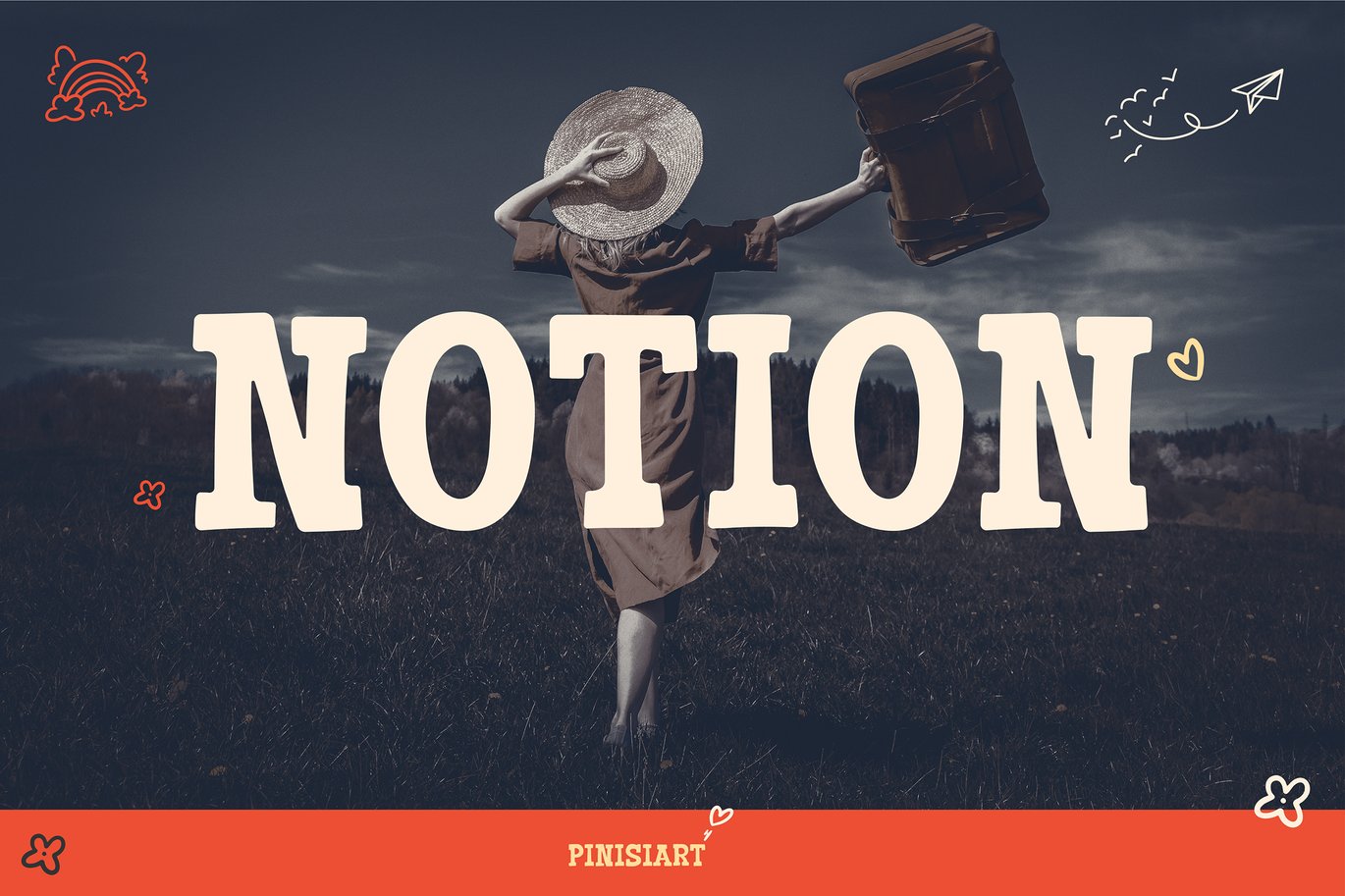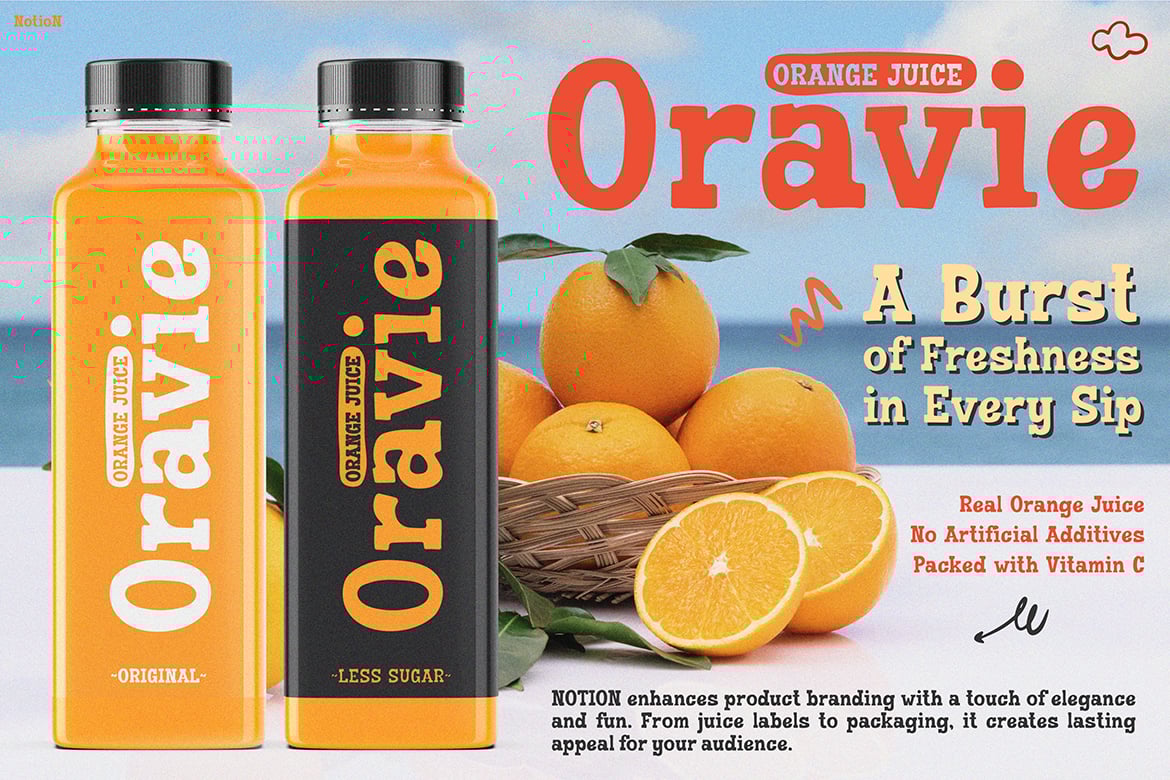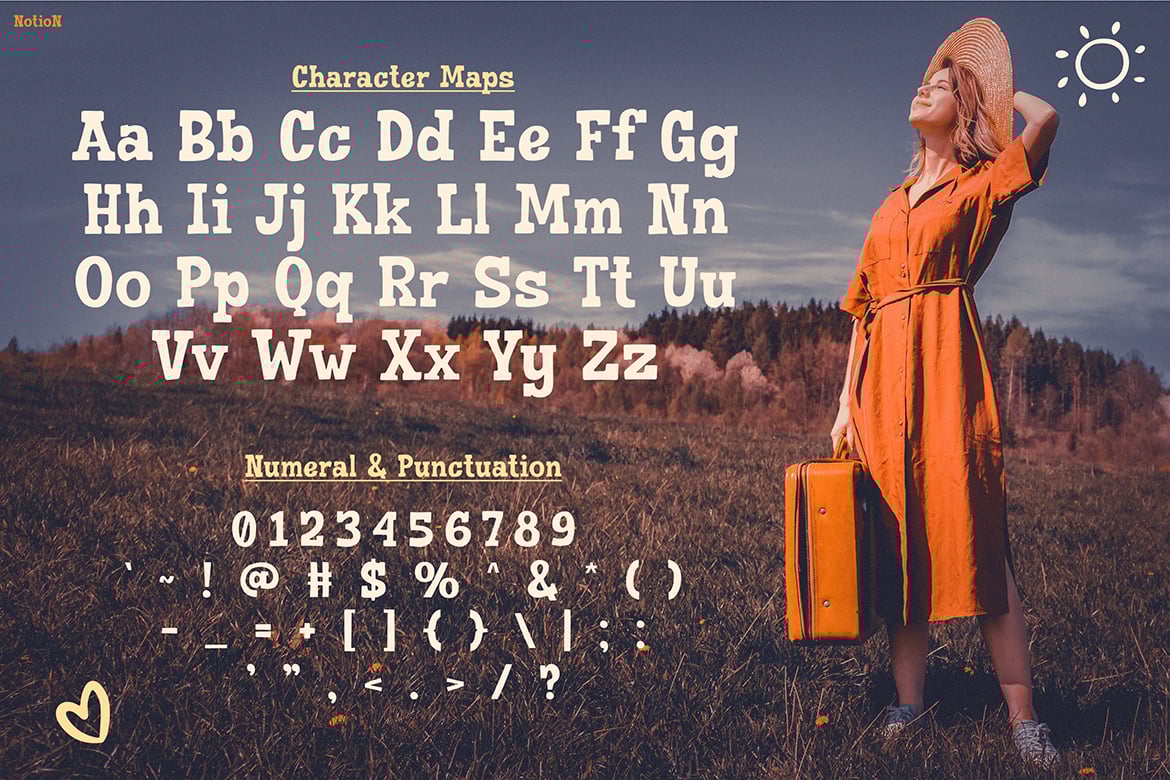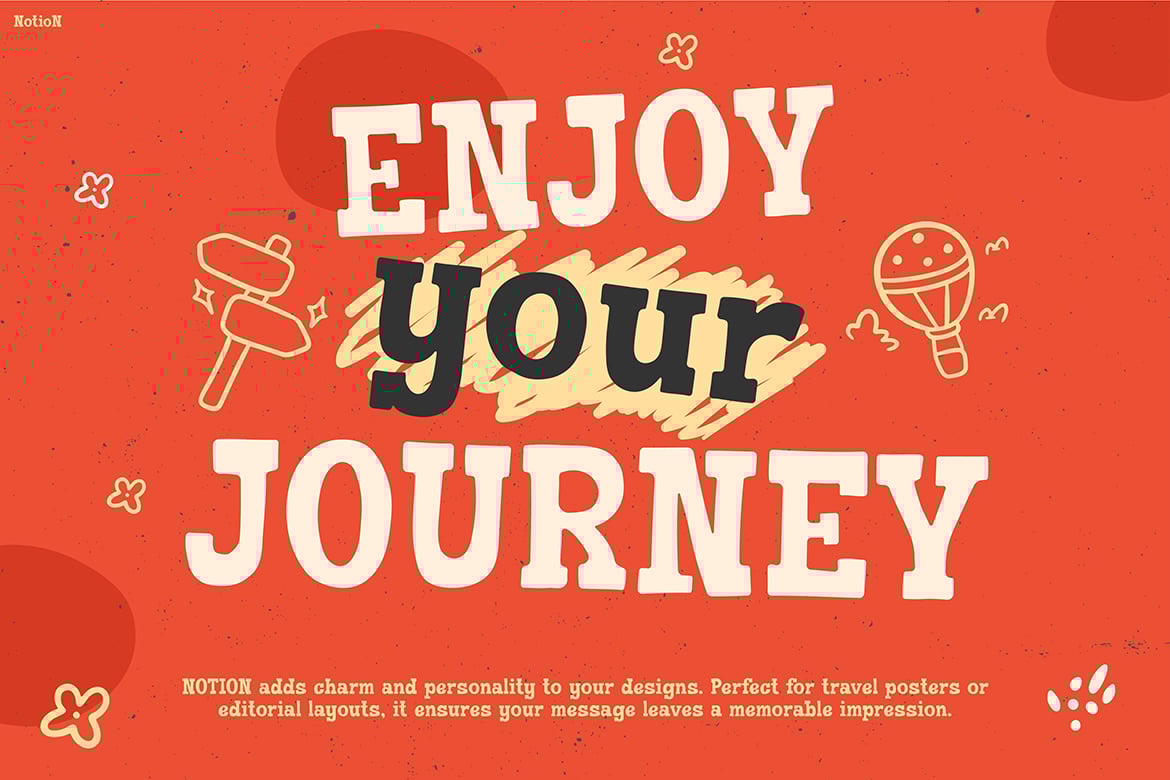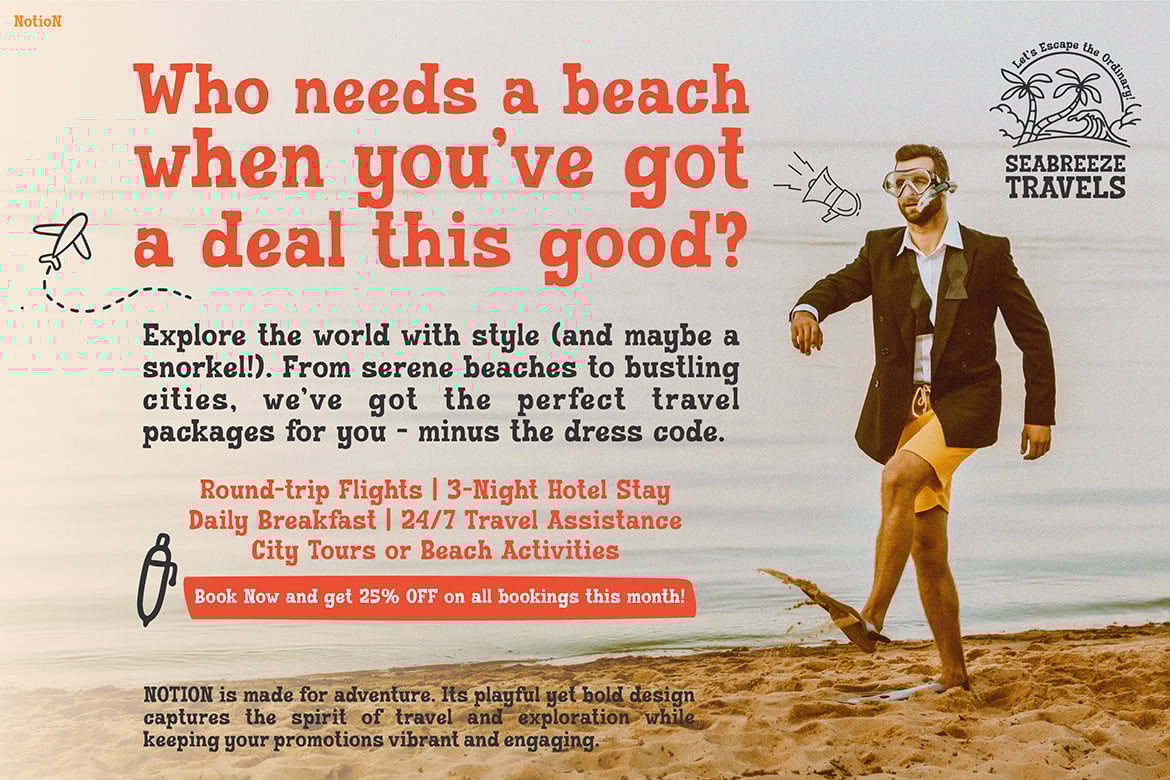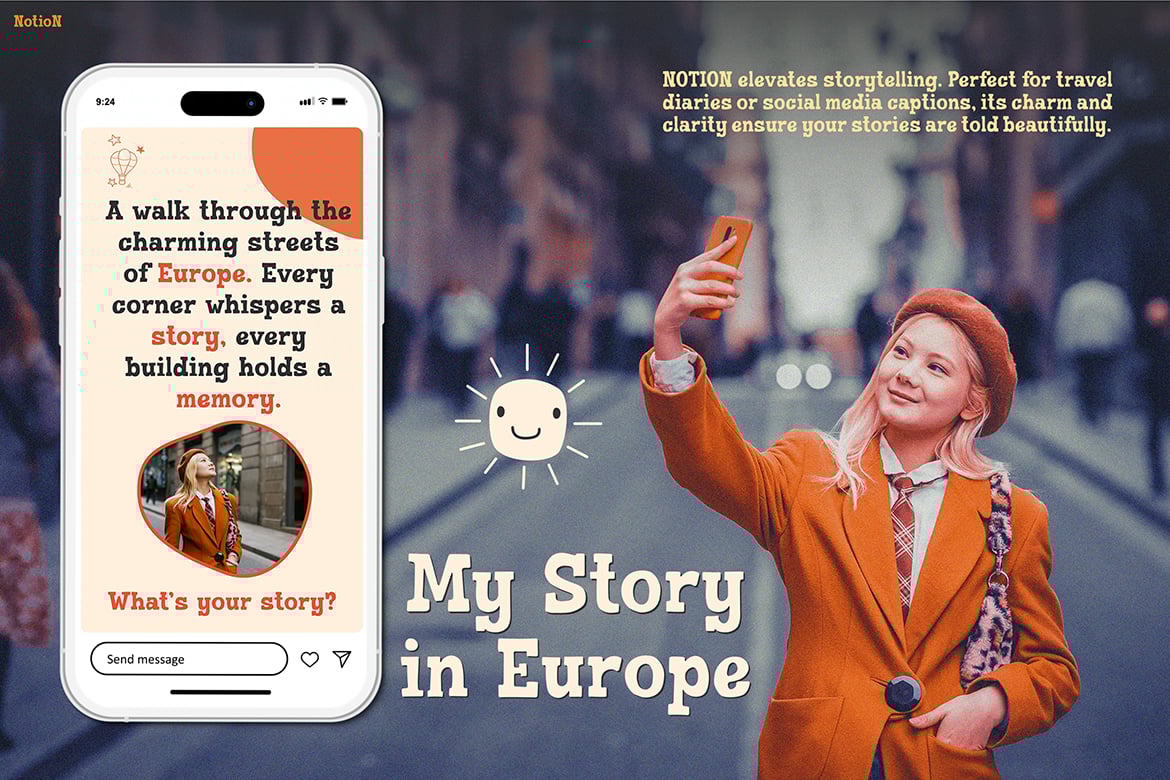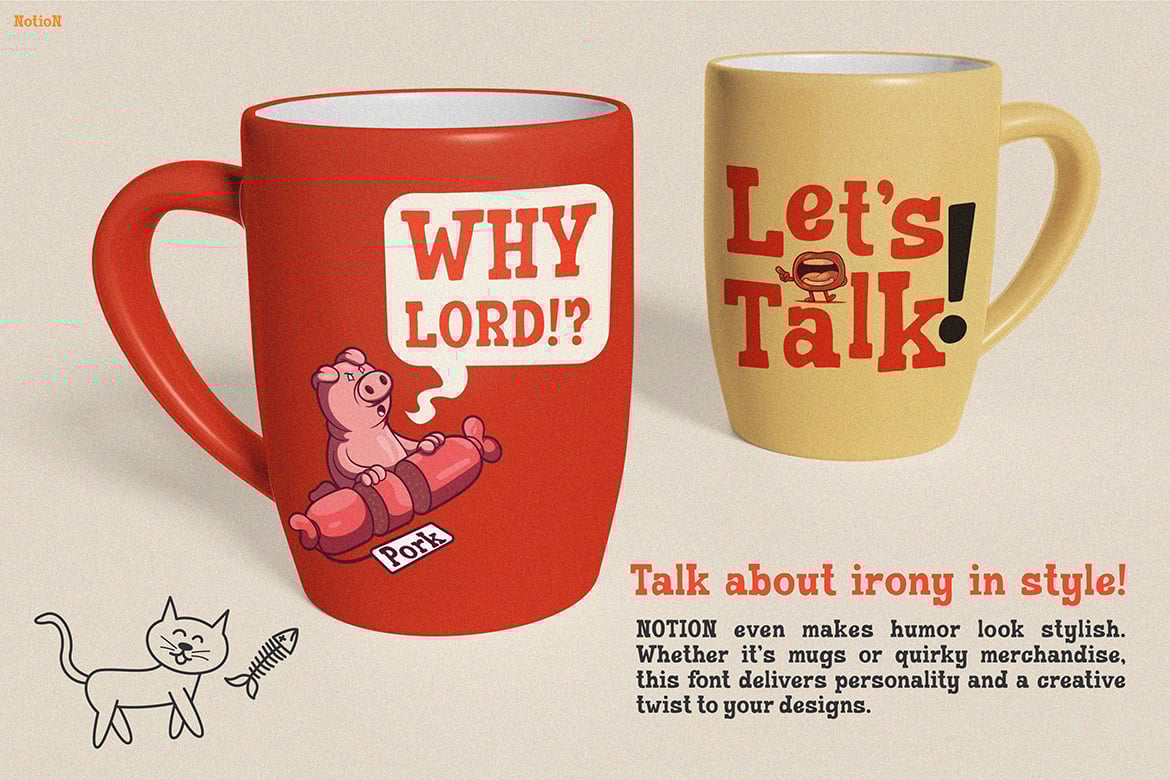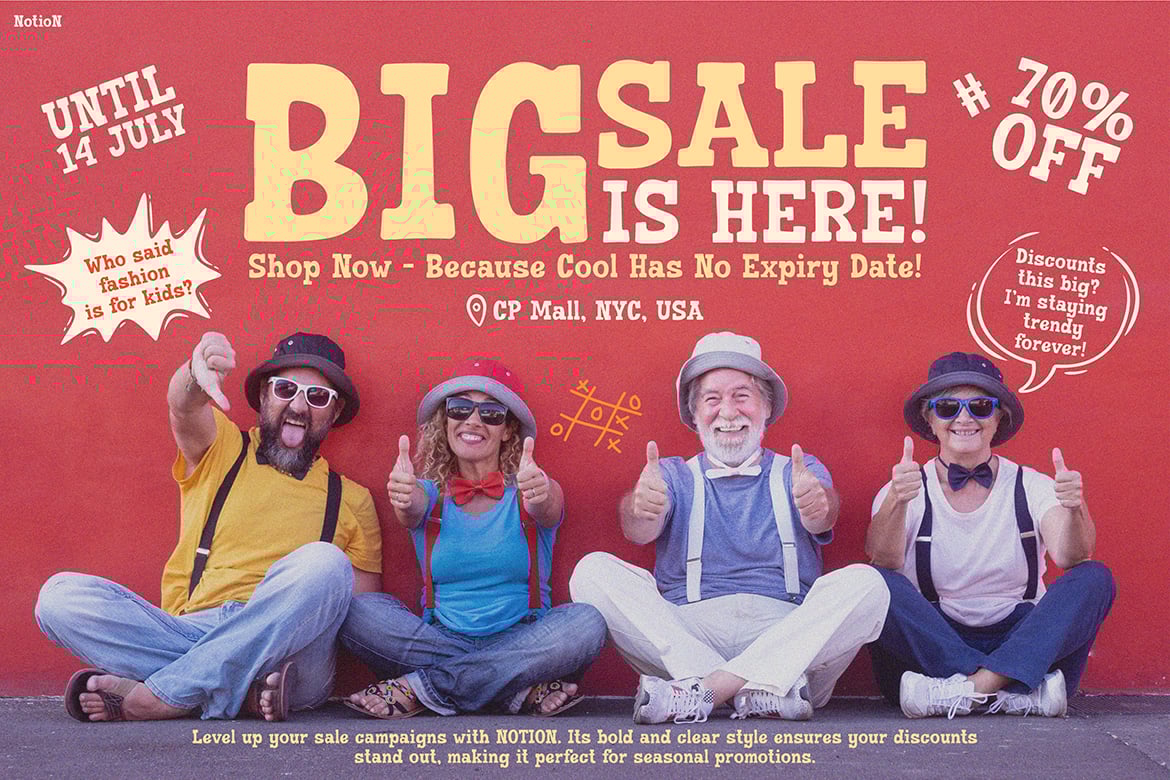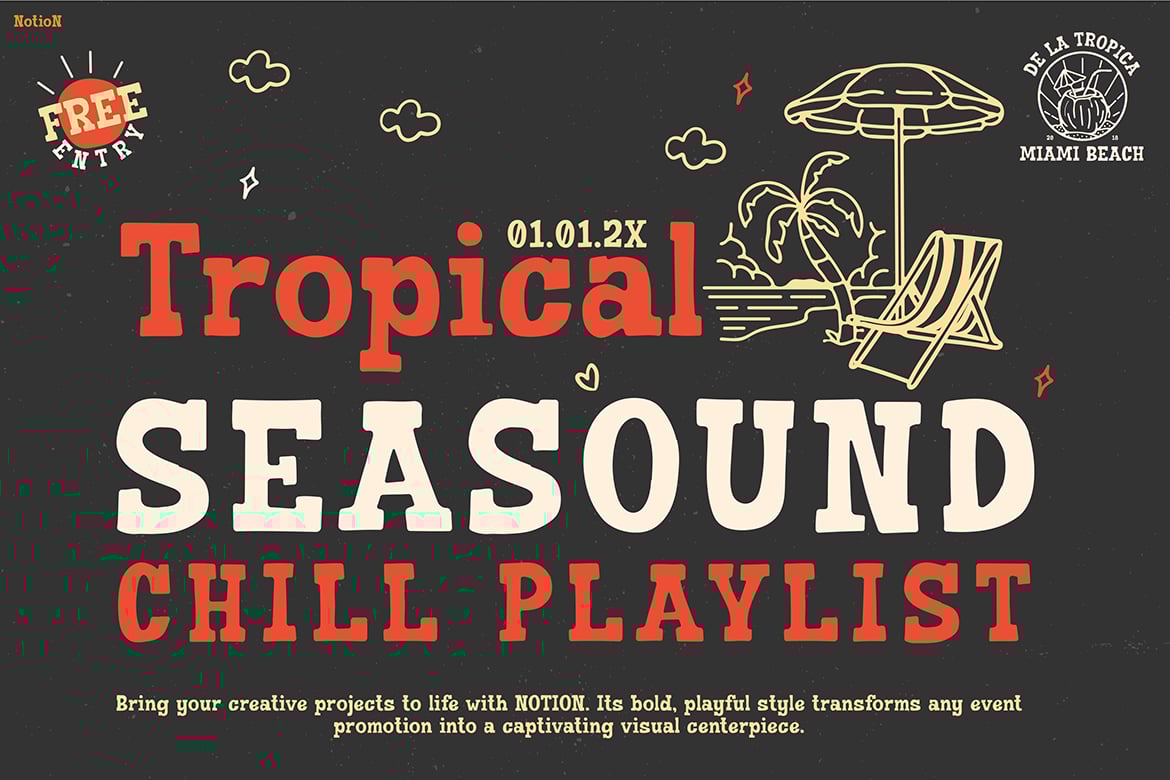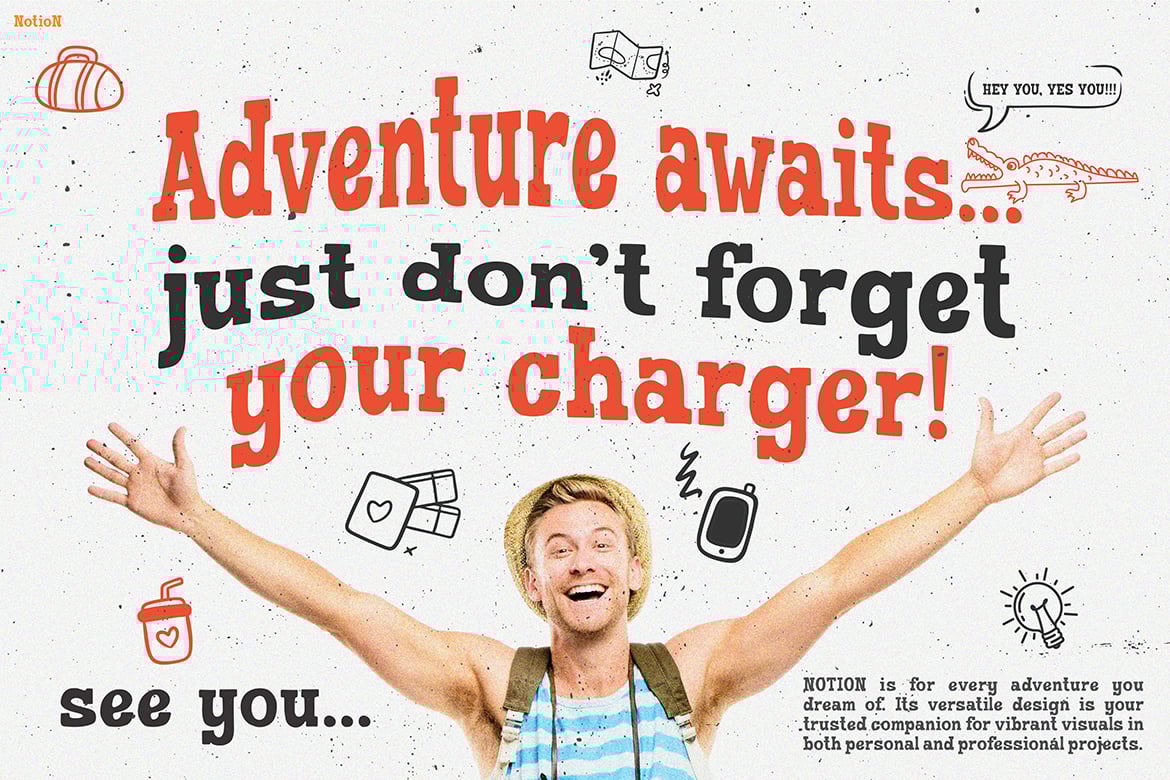
Whimsical Fun Font – Notion
NOTION is a charismatic playful serif display font with rounded, charming details and a bold presence that makes it instantly likeable. Designed with personality in every stroke, NOTION evokes a sense of storytelling, warmth, and spontaneous fun.
Its friendly curves and bold contrast make it perfect for juice packaging, adventuresome branding, travel campaigns, kids’ merchandise, social media visuals, and family-targeted promotions. Whether you’re announcing a big sale, launching a new drink, or sharing a nostalgic postcard vibe, NOTION delivers your message with a smile.
With a strong presence in both uppercase and lowercase, this font feels handcrafted but polished—an ideal middle ground between retro, fun, and professional.
NOTION captures the joy of discovery, the warmth of storytelling, and the spirit of connection—all in one fun and versatile font. It’s here to help your designs speak with heart and stand out with style.
Key Features :
- Rounded Playful Serif – A mix of vintage charm and modern friendliness
- Full Character Set – Includes uppercase, lowercase, numbers & punctuation
- Built for Branding & Packaging – Looks great on product labels, bags, and boxes
- Perfect for Lifestyle & Travel Themes – Great for campaigns with personality and warmth
- Ideal for Merch & Promo Graphics – Use in mugs, postcards, banners, and web visuals
- Family-Friendly Tone – Suitable for youth markets, educational tools, and casual promos
NOTION makes your brand more approachable, joyful, and memorable, while keeping the message crystal clear and visually engaging.